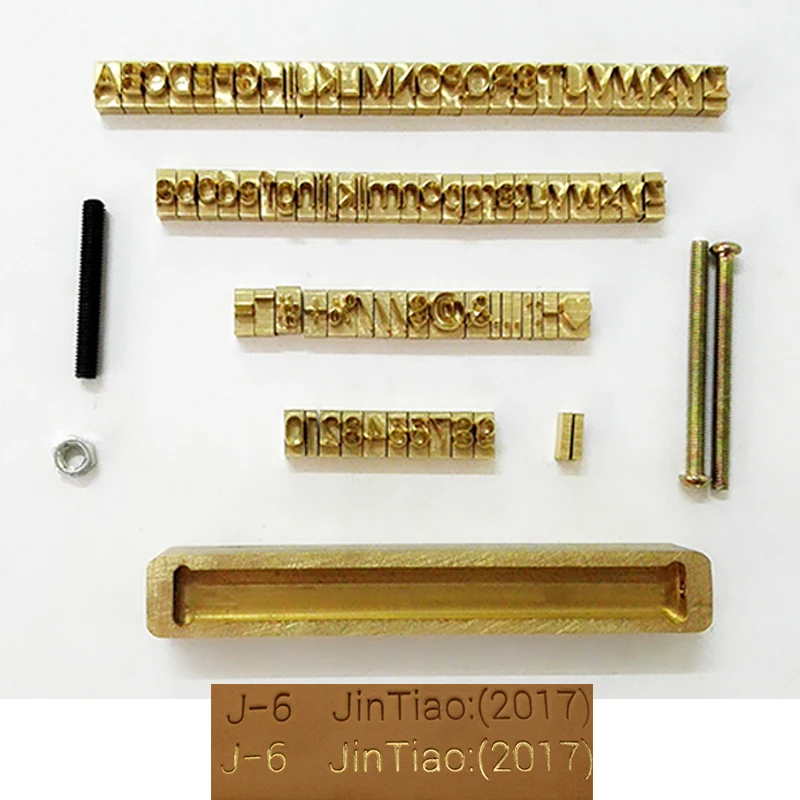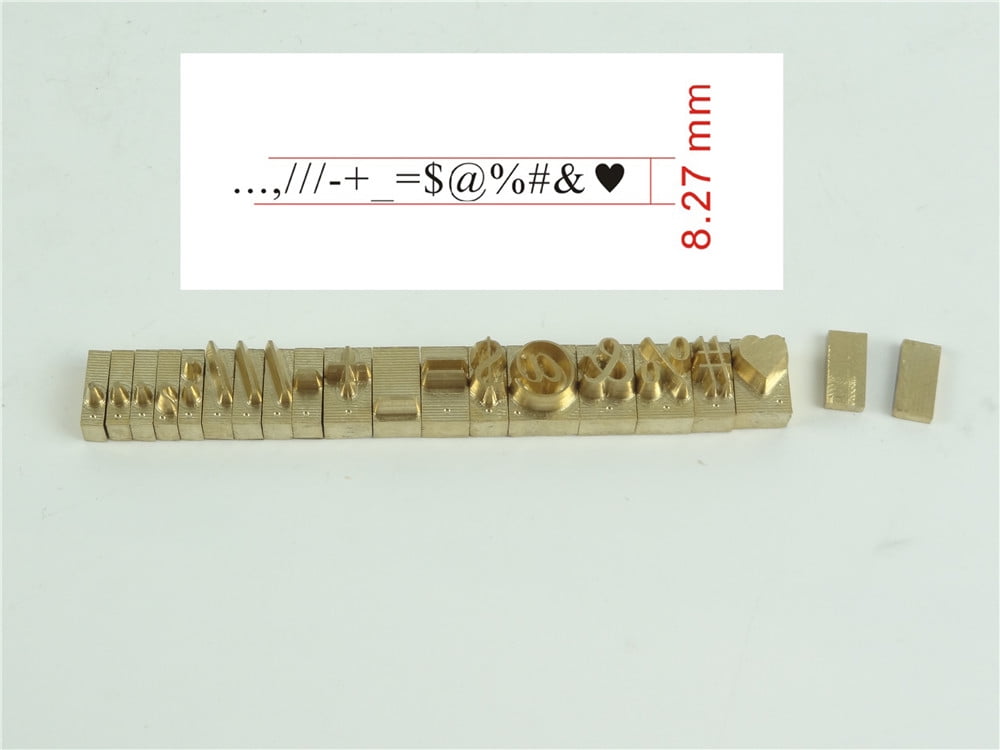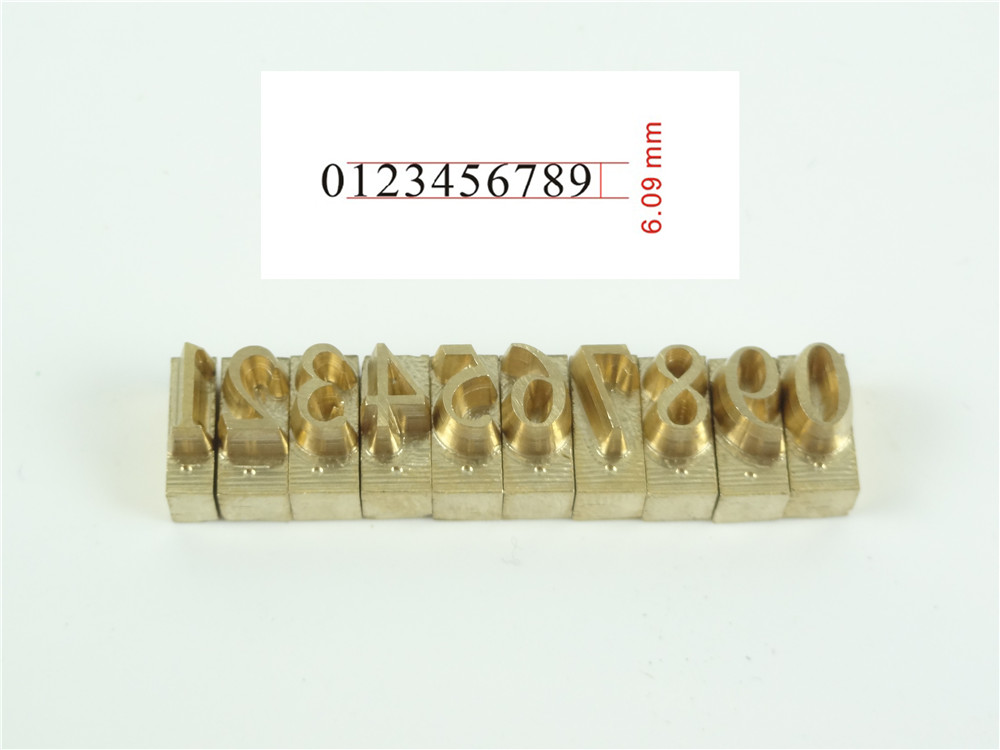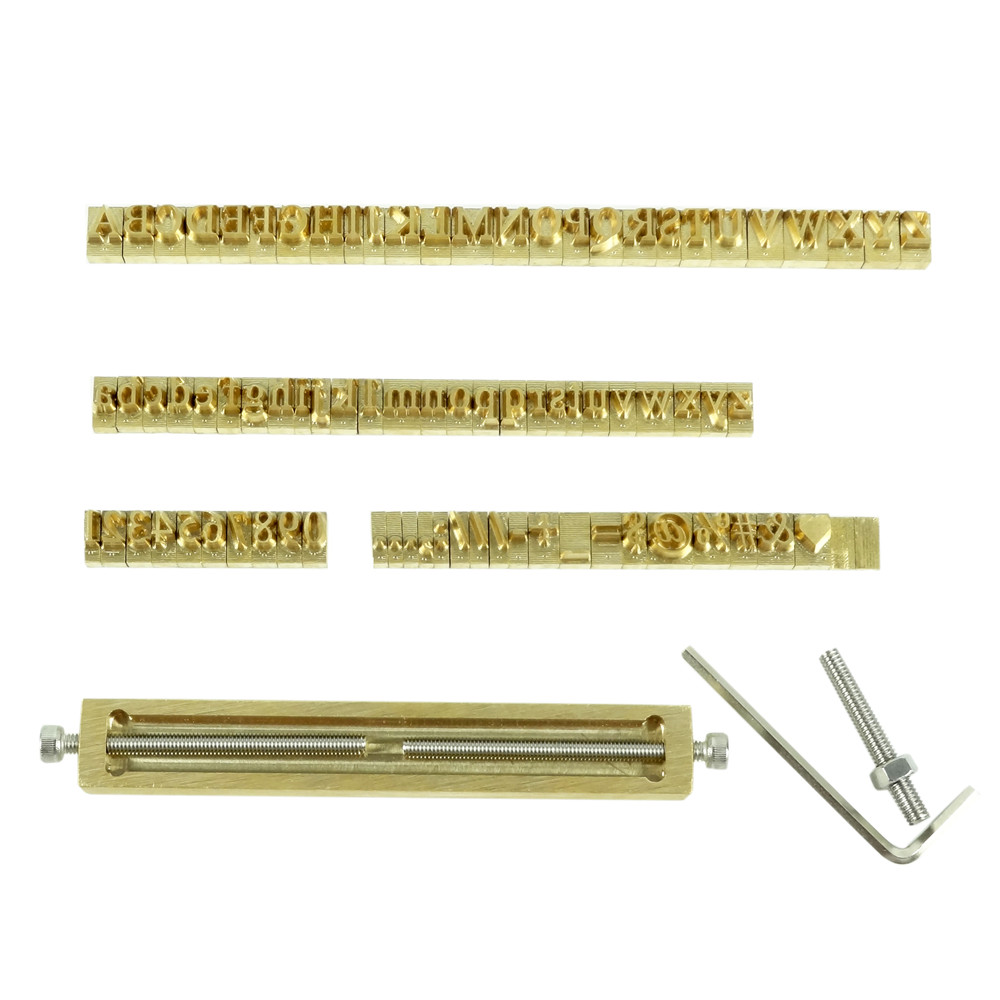
Foil Stamping Fonts . Font weight, fine scripts, and thin fonts: Thin fonts can be used, but if the font has very. There are no special pin marks obvious on the metal type itself. Foil stamping guarantees that your product packaging stands out from the competition, adding brilliance and luxury to any package, especially with gold or silver foil finishes. Whether your project is playful, formal, or somewhere in between, here’s a few to get you started. Hot foiling is a technique that uses heat and pressure to apply metallic designs to a range of materials. Typefaces generally appear a little bolder when foil stamped. Examples of fonts in use tagged with “foil stamping”. From the studio of david ashley, a bookbinder in denver,. Looking for a font that will work with the foil quill? You use hot foil machines to. Metallic foil and holographic foil. Let’s take a look at the historical background to foiling and some contemporary examples to whet your appetite. Adding a little gold foil to your fonts is the perfect way to elevate and add glamor to a font.
Let’s take a look at the historical background to foiling and some contemporary examples to whet your appetite. Looking for a font that will work with the foil quill? Thin fonts can be used, but if the font has very. Adding a little gold foil to your fonts is the perfect way to elevate and add glamor to a font. Metallic foil and holographic foil. You use hot foil machines to. Hot foiling is a technique that uses heat and pressure to apply metallic designs to a range of materials. Foil stamping guarantees that your product packaging stands out from the competition, adding brilliance and luxury to any package, especially with gold or silver foil finishes. Whether your project is playful, formal, or somewhere in between, here’s a few to get you started. Typefaces generally appear a little bolder when foil stamped.
Foil Stamping Fonts Thin fonts can be used, but if the font has very. Metallic foil and holographic foil. There are no special pin marks obvious on the metal type itself. Examples of fonts in use tagged with “foil stamping”. Typefaces generally appear a little bolder when foil stamped. Thin fonts can be used, but if the font has very. From the studio of david ashley, a bookbinder in denver,. Font weight, fine scripts, and thin fonts: Whether your project is playful, formal, or somewhere in between, here’s a few to get you started. Adding a little gold foil to your fonts is the perfect way to elevate and add glamor to a font. You use hot foil machines to. Foil stamping guarantees that your product packaging stands out from the competition, adding brilliance and luxury to any package, especially with gold or silver foil finishes. Let’s take a look at the historical background to foiling and some contemporary examples to whet your appetite. Hot foiling is a technique that uses heat and pressure to apply metallic designs to a range of materials. Looking for a font that will work with the foil quill?
Hot Gold Foil Stamping Letter Embossing Alphabet Sets of Letters Foil Stamping Fonts Looking for a font that will work with the foil quill? From the studio of david ashley, a bookbinder in denver,. Foil stamping guarantees that your product packaging stands out from the competition, adding brilliance and luxury to any package, especially with gold or silver foil finishes. Let’s take a look at the historical background to foiling and some contemporary. Foil Stamping Fonts.
Time Roman font style brass hot foil stamping letters ,based on "A Foil Stamping Fonts Adding a little gold foil to your fonts is the perfect way to elevate and add glamor to a font. Examples of fonts in use tagged with “foil stamping”. From the studio of david ashley, a bookbinder in denver,. Typefaces generally appear a little bolder when foil stamped. You use hot foil machines to. Metallic foil and holographic foil. Thin. Foil Stamping Fonts.
Time Roman font style brass hot foil stamping letters ,based on "A Foil Stamping Fonts Metallic foil and holographic foil. Whether your project is playful, formal, or somewhere in between, here’s a few to get you started. Hot foiling is a technique that uses heat and pressure to apply metallic designs to a range of materials. There are no special pin marks obvious on the metal type itself. Typefaces generally appear a little bolder when. Foil Stamping Fonts.
Hot Foil Stamping Gold Foil Printing BeePrinting Foil Stamping Fonts You use hot foil machines to. Hot foiling is a technique that uses heat and pressure to apply metallic designs to a range of materials. From the studio of david ashley, a bookbinder in denver,. Font weight, fine scripts, and thin fonts: Thin fonts can be used, but if the font has very. Metallic foil and holographic foil. Examples of. Foil Stamping Fonts.
Brass type from Bookbindesigns Hot foil stamping, Foil stamping, Brass Foil Stamping Fonts Adding a little gold foil to your fonts is the perfect way to elevate and add glamor to a font. Examples of fonts in use tagged with “foil stamping”. There are no special pin marks obvious on the metal type itself. From the studio of david ashley, a bookbinder in denver,. You use hot foil machines to. Typefaces generally appear. Foil Stamping Fonts.